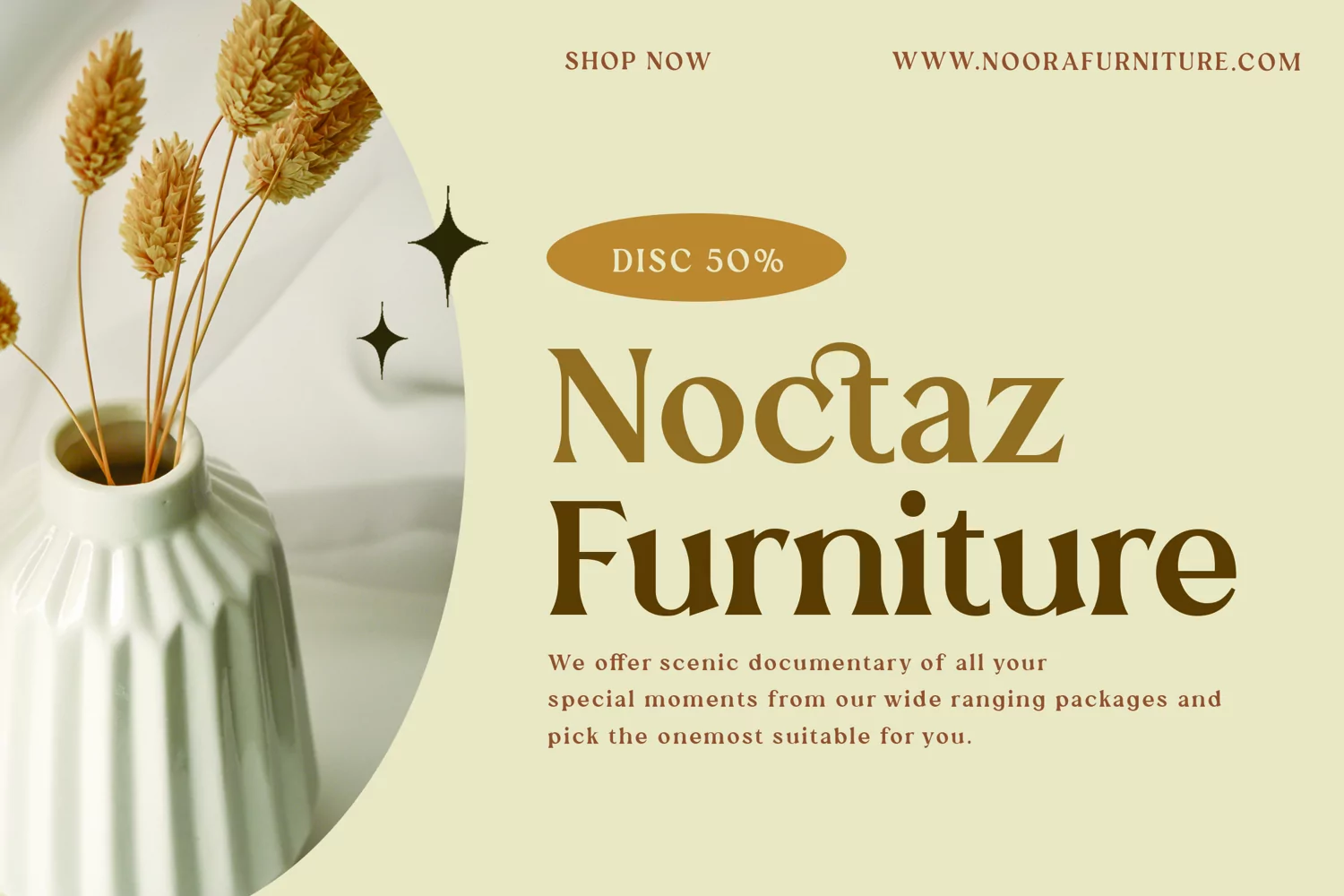
Nekolina - Beauty Vintage Retro Serif - Summer Holiday Traveling Font
Nekolina comes with some alternates and ligatures, so you can combine it to make a perfect typography design. It is perfect for your up coming projects. Such as logo branding, adventure, jungle / wild, custom motorcycle / car, vintage industrial, summer holiday branding, editorial design, stationery design, blog design, modern advertising design, card invitation, art quote, home decor, book/cover title, special events, classic automotive and any hand lettering classic / vintage typography design projects.